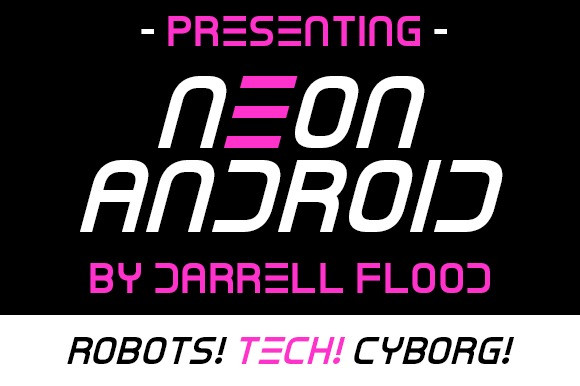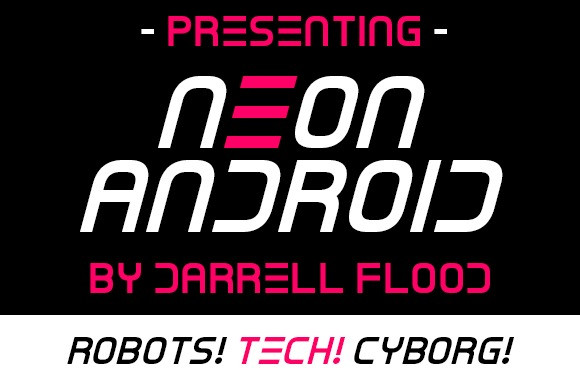
Neon Android Font
Neon Android Display Font, A slick, modern, neon style font with smooth curves and creative cut away components. Perfect for hi tech themes, alien encounters and general science fiction use!